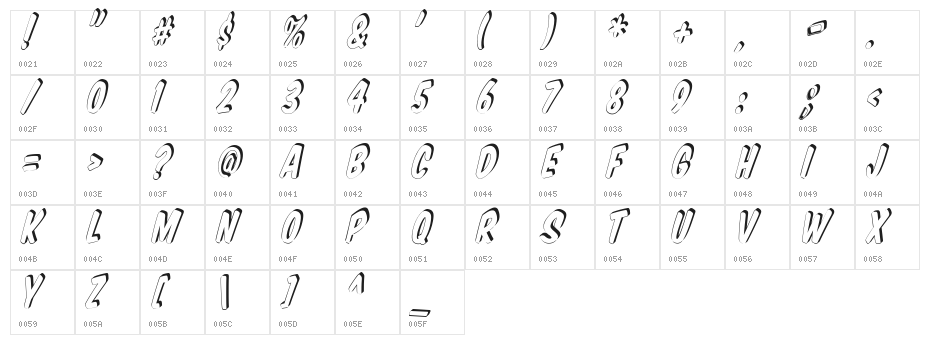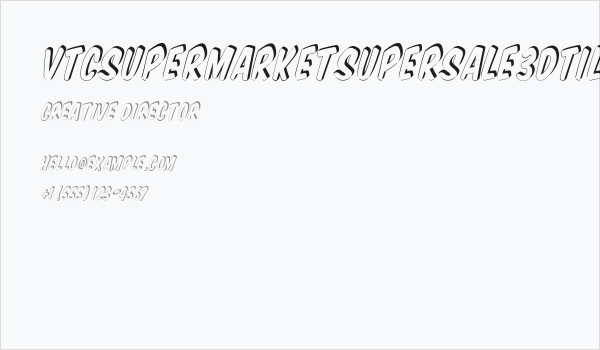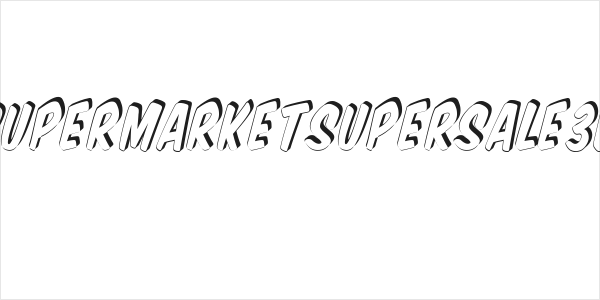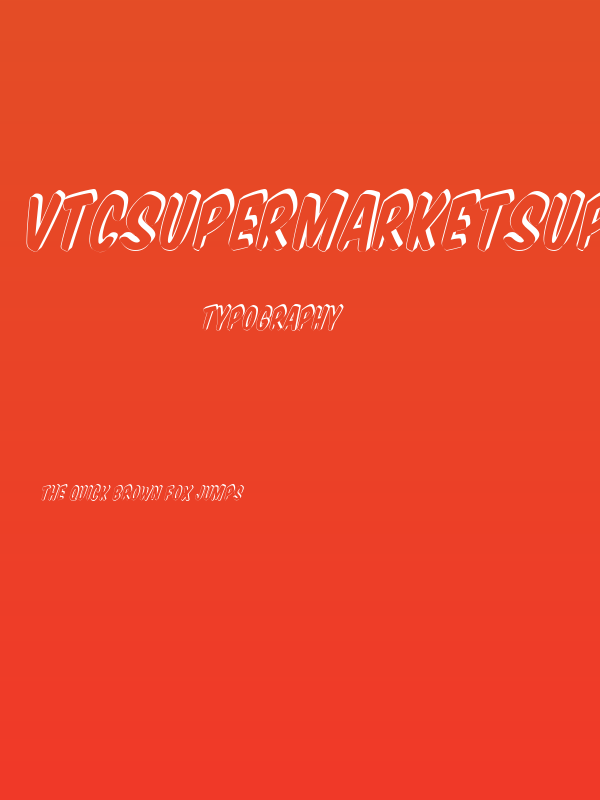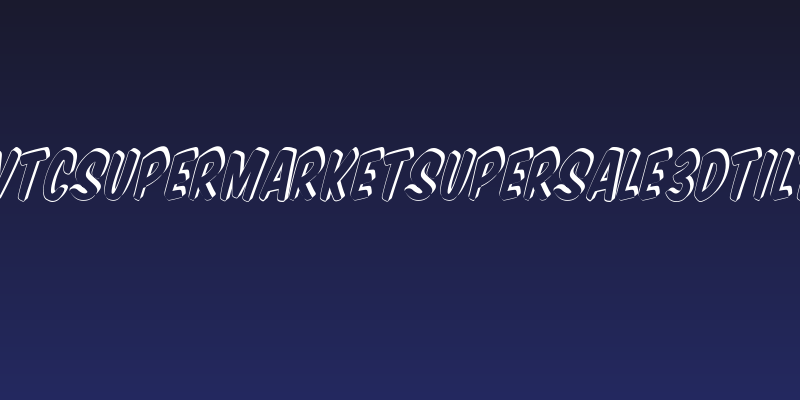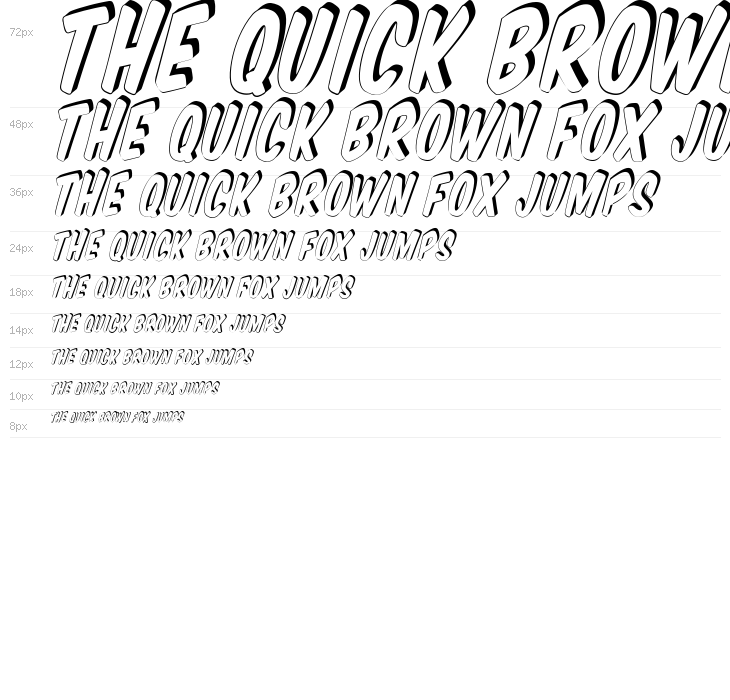
VTCSuperMarketSuperSale3DTilt Font
VTCSuperMarketSuperSale3DTilt Description
This font features a bold, three-dimensional design with a distinct tilt, giving it a dynamic and energetic appearance. The letters are uppercase and have a playful, cartoonish style, making them stand out with a shadow effect that adds depth. The numbers and special characters follow the same design principles, ensuring consistency across all glyphs. The font's thick strokes and bold presence make it ideal for attention-grabbing headlines and promotional materials. Its unique style is perfect for projects that require a fun and lively aesthetic.
| Proposed Projects | Ideal for posters, advertisements, event flyers, and any project needing a vibrant and eye-catching font. |